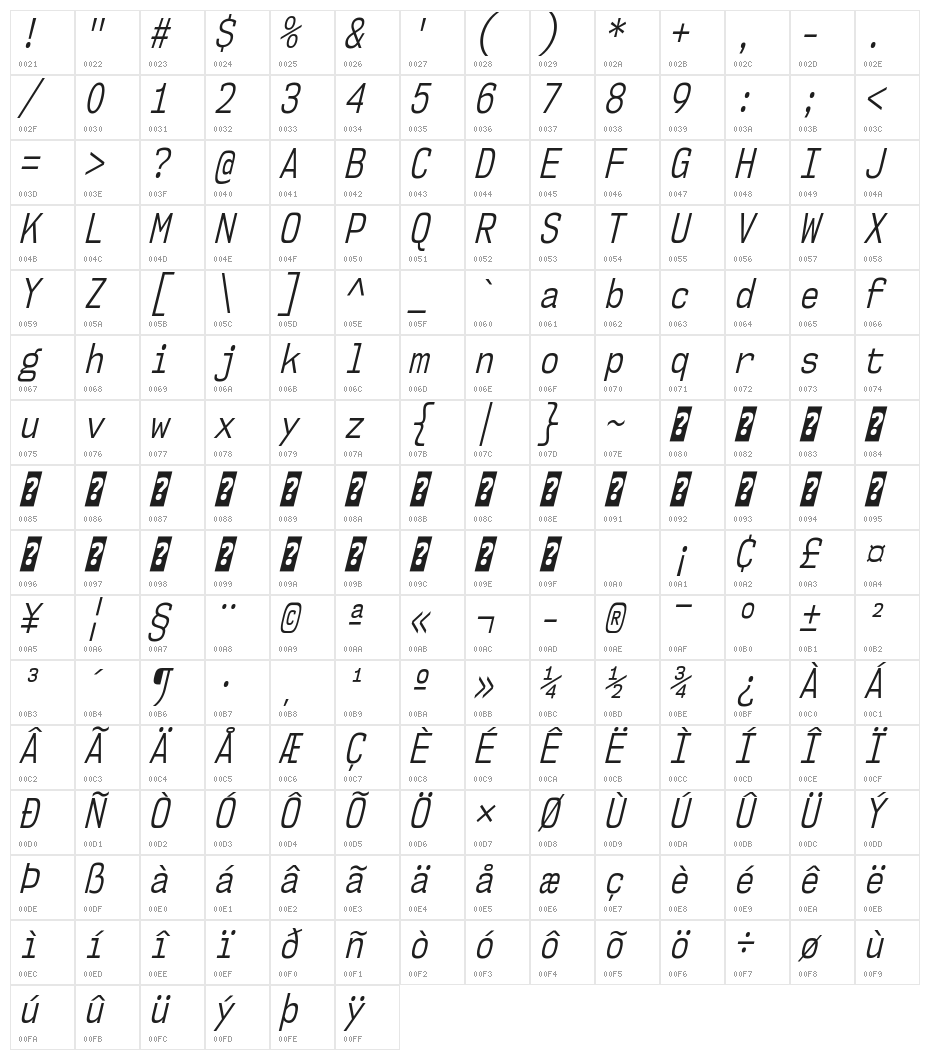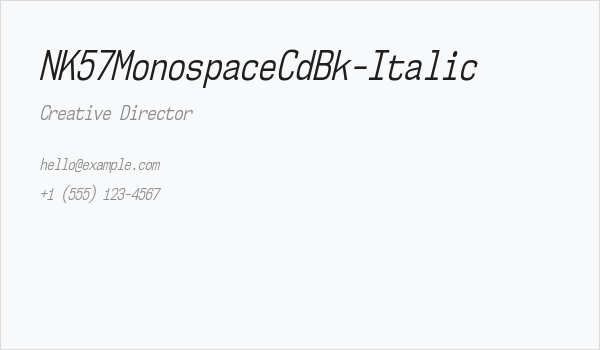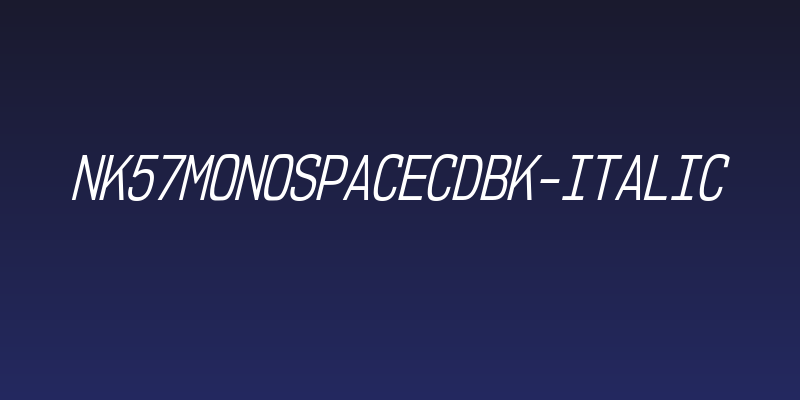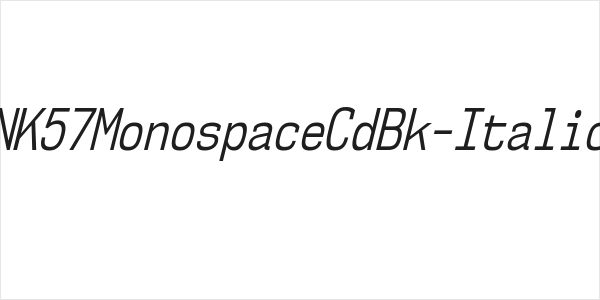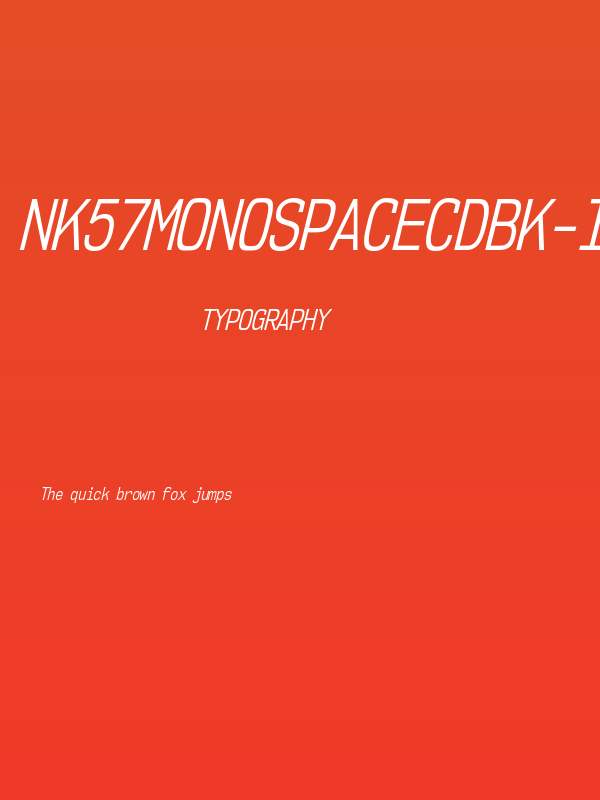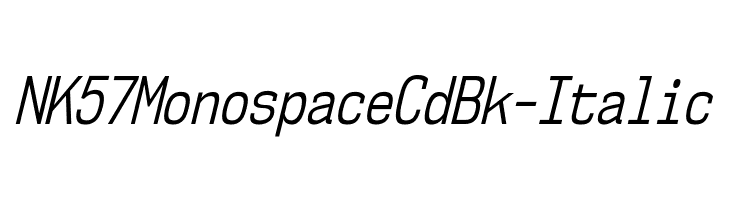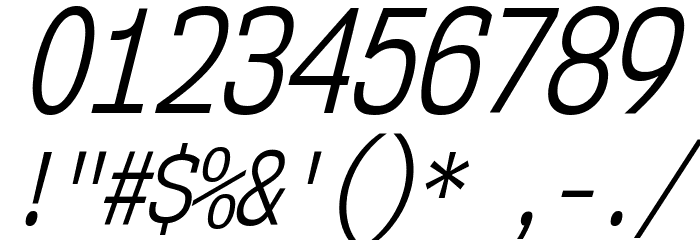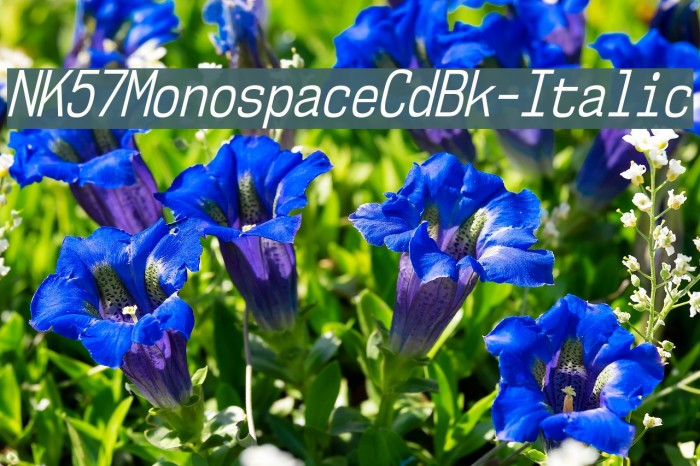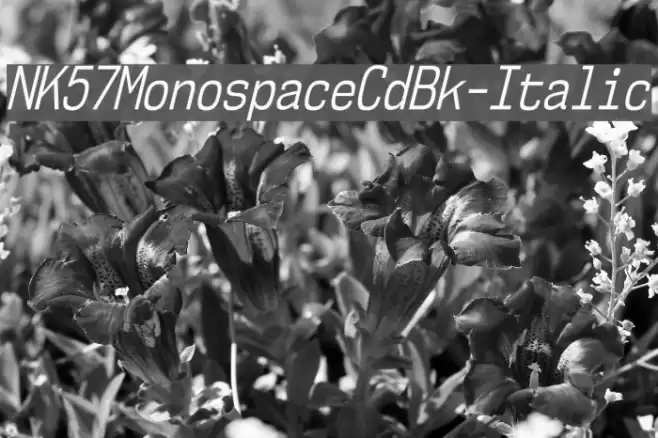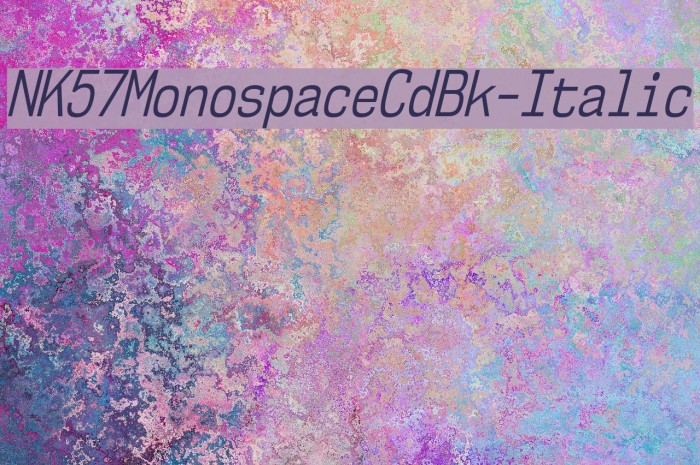
NK57MonospaceCdBk-Italic Font
NK57MonospaceCdBk-Italic Description
This font features a clean, modern design with a monospaced structure, ensuring each character occupies the same width. It is italicized, adding a dynamic and forward-leaning appearance. The characters are slightly condensed, contributing to a sleek and efficient look. The strokes are consistent in thickness, providing a medium contrast that enhances readability while maintaining a uniform aesthetic. The font includes a full set of uppercase and lowercase letters, numerals, and a variety of special characters, making it versatile for various applications.
| Use Case | Coding, Technical documentation, Modern design |
| Proposed Projects | Ideal for coding environments, technical documentation, and modern design projects requiring a clean, structured appearance. |